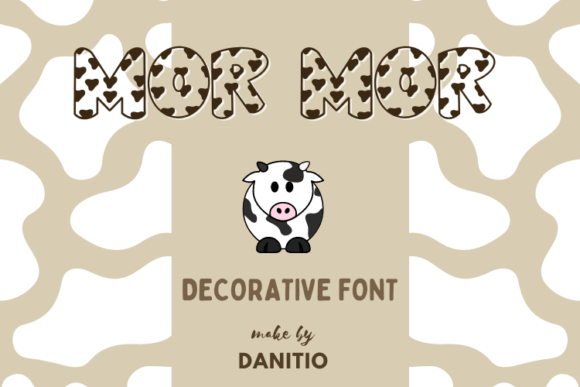
Introducing Mor Mor Font: A Whimsical Decorative Font with a Unique Cow Pattern
Journey into the world of Mor Mor Font, a captivating decorative font adorned with an adorable cow pattern. The playful spirit of this font will breathe life into your creative endeavors, adding a touch of charm and whimsy to your designs. Picture your words transformed into an enchanting tapestry, where each letter dances with the playful motifs of hand-drawn cows. Prepare to be captivated as your typography takes on a captivating new form.
Unlock the boundless potential of Mor Mor, a font designed to capture attention and leave a lasting impression. Whether you're crafting eye-catching invitations, designing vibrant posters, or embarking on any creative venture, Mor Mor is your key to unlocking a world of visual delight. Step into a realm where typography harmonizes with artistry, where your words become works of art.
Embrace the cheerful energy of Mor Mor Font. Its playful nature will infuse your projects with a sense of joy and cuteness, making them irresistible to the eye. Unleash your imagination and let Mor Mor take your designs to new heights, creating a typography that captivates audiences and leaves them yearning for more.
With Mor Mor Font, you'll discover a decorative font that transcends ordinary typography. Its whimsical charm will make your words come alive, providing an unforgettable experience for readers and viewers alike. Join the growing community of designers, artists, and creatives who have fallen in love with the magic of Mor Mor.